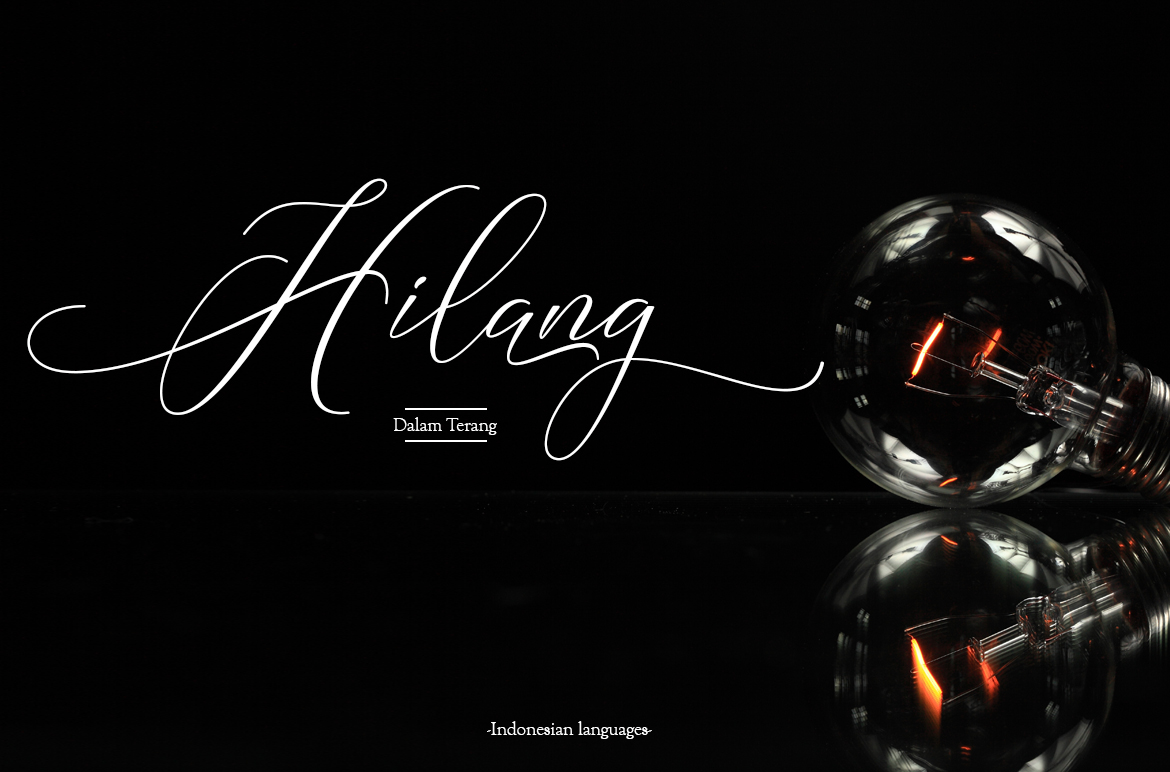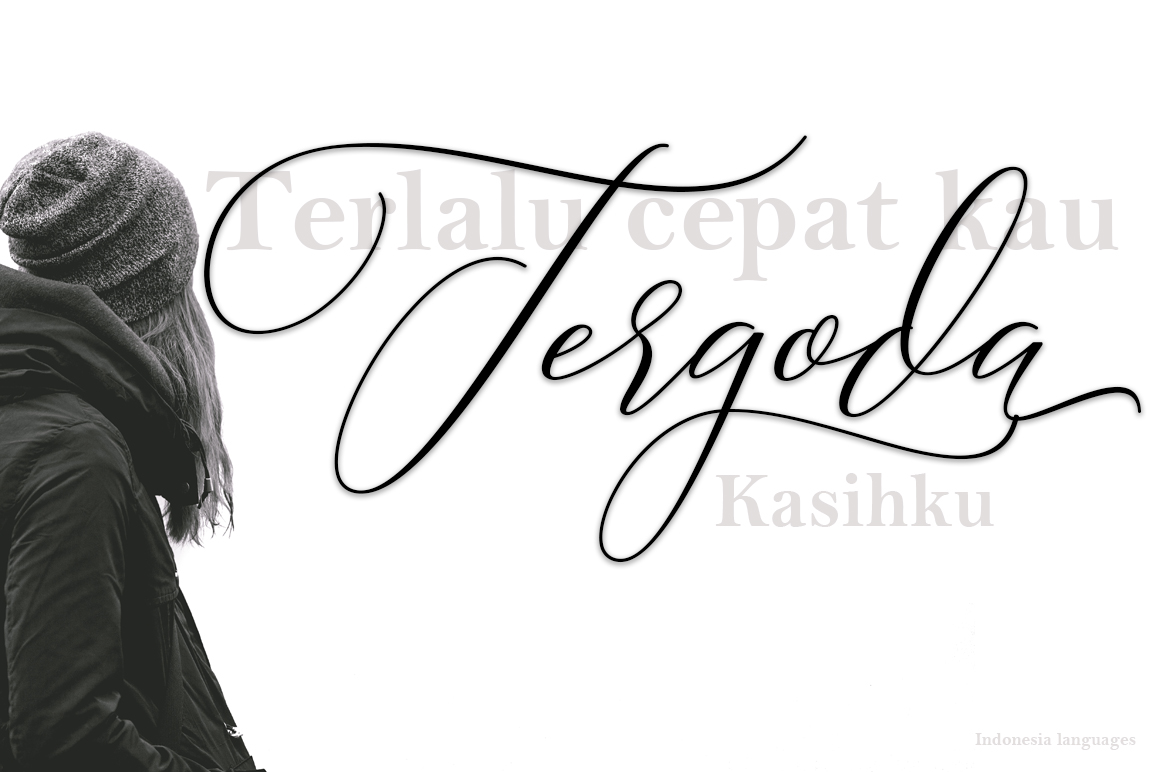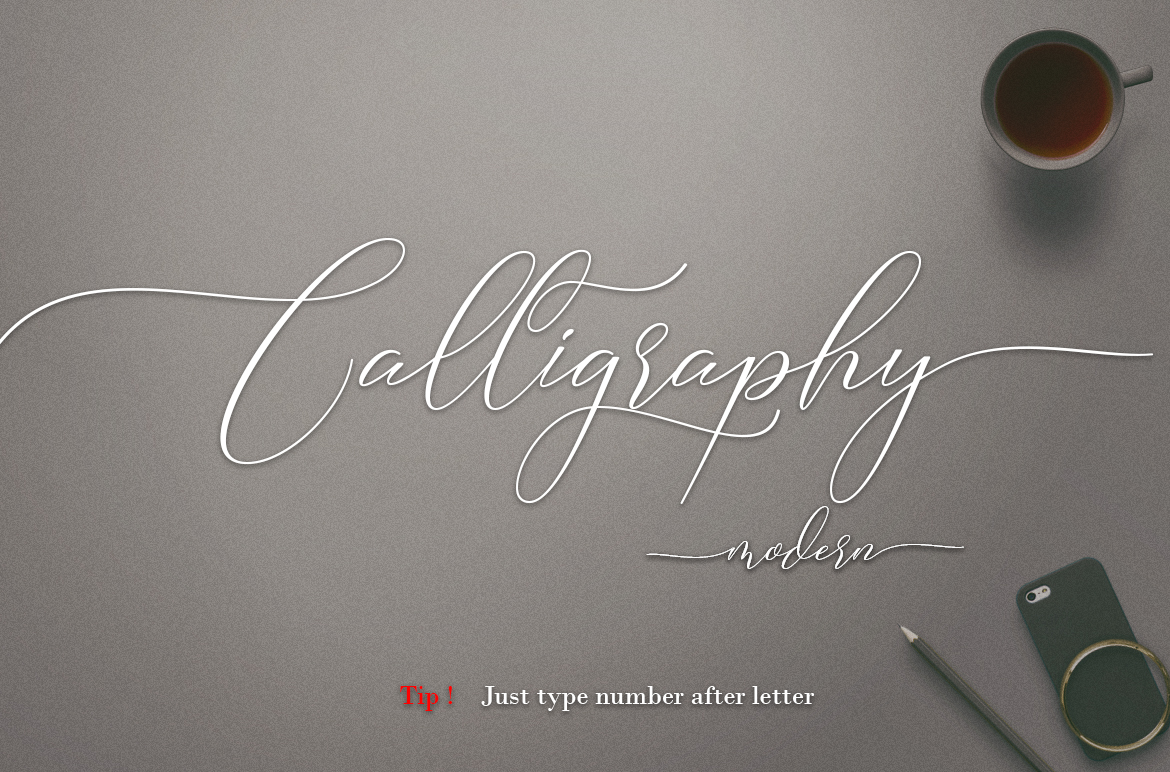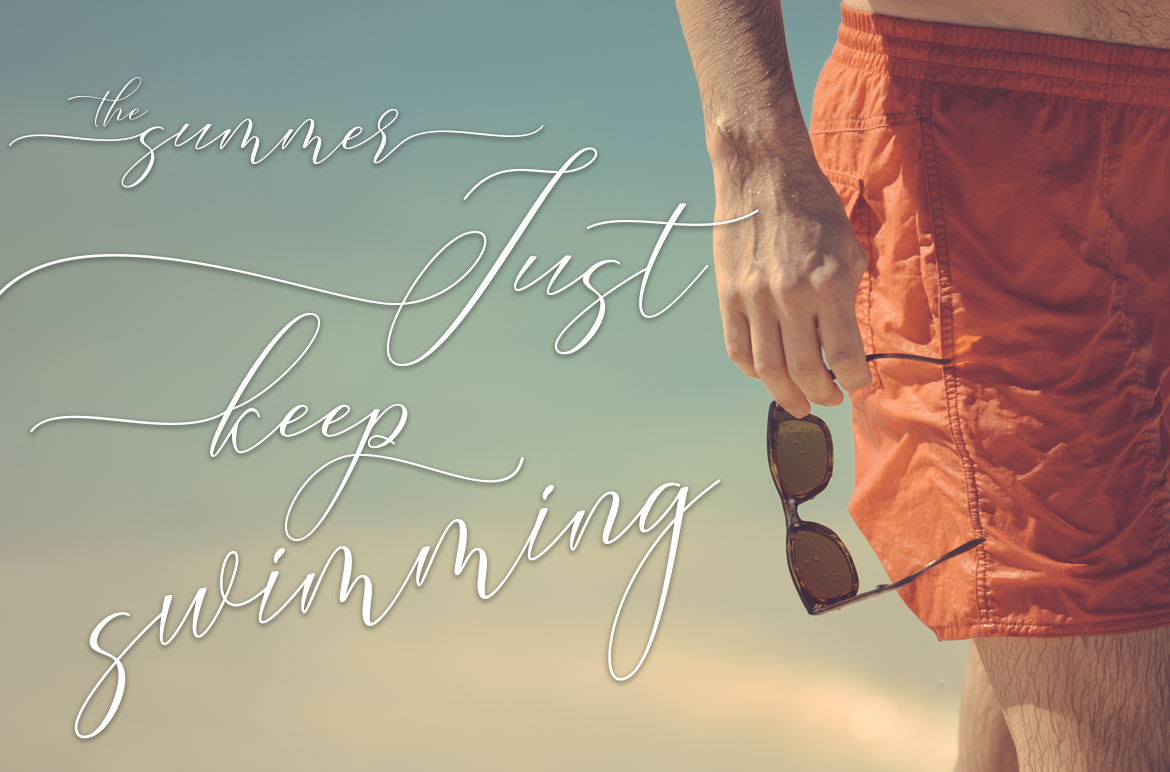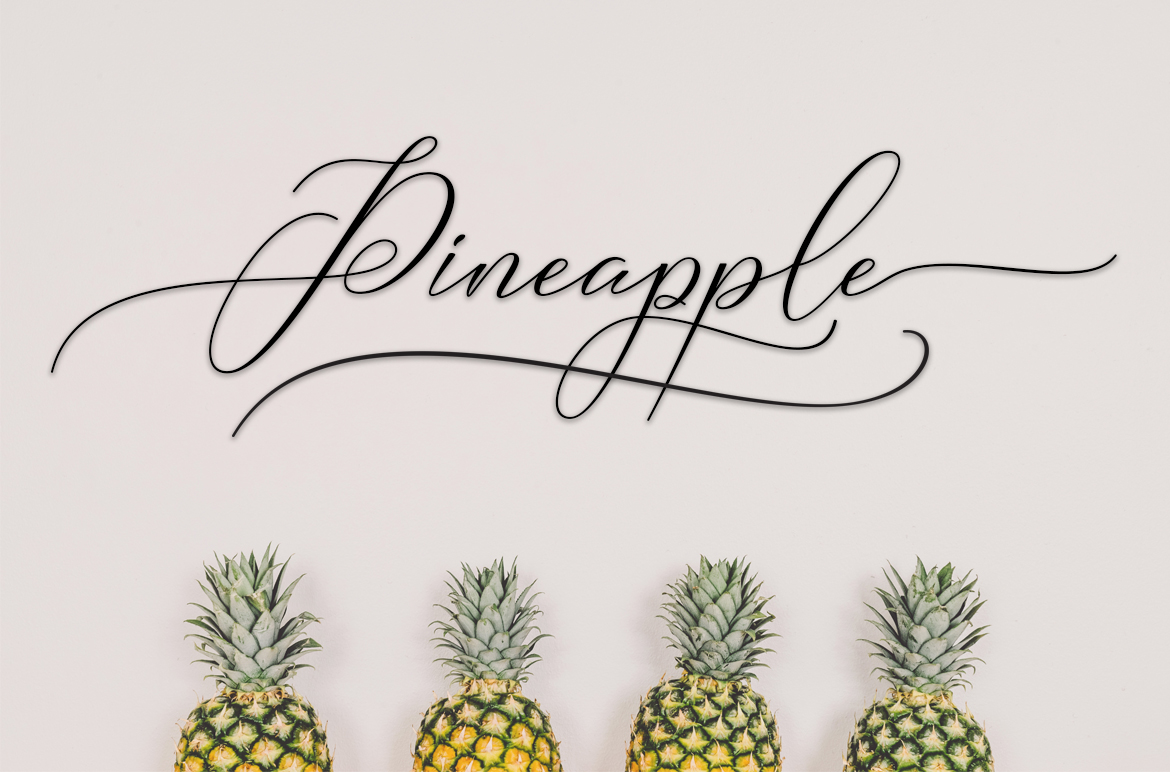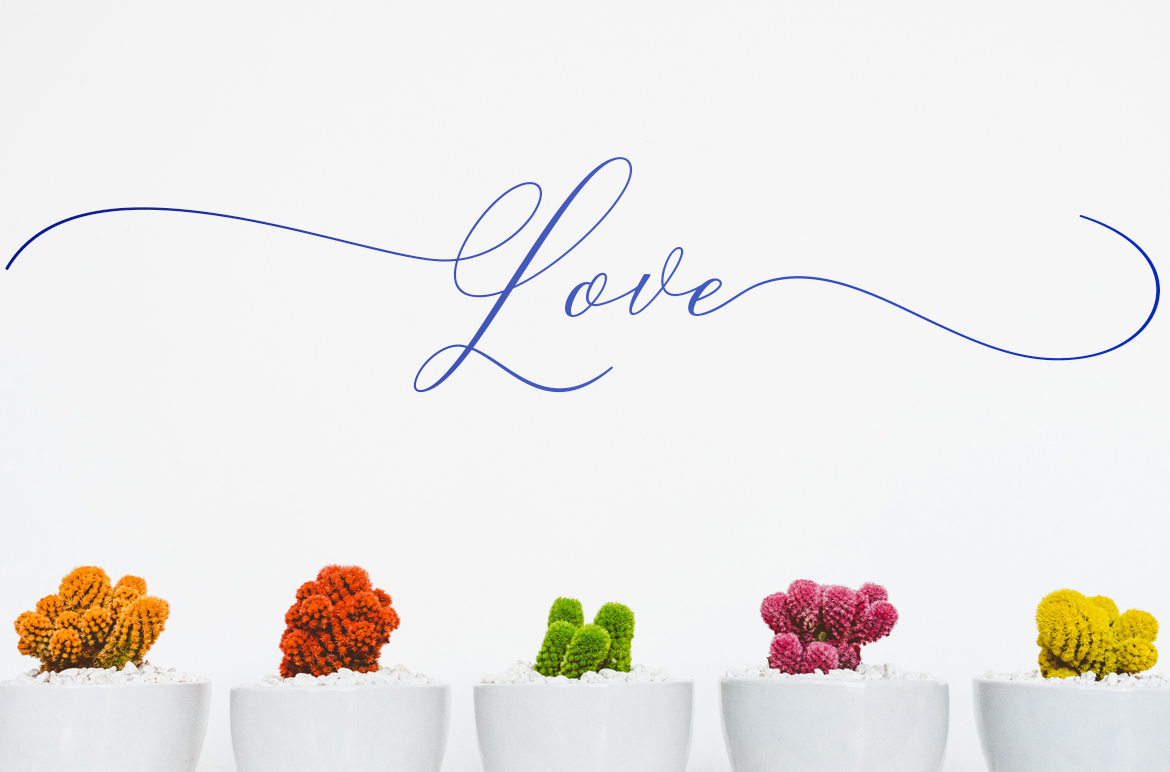
Discovering the Beauty of Typographic Details
As designers, we’ve all been there – staring at a blank canvas, waiting for that spark of creativity to ignite. It’s the moment when the perfect font can make all the difference. Imagine a world where your typography is not just functional, but an extension of your artistic vision.
Enter the Camelia Font, a powerhouse of a typeface that’s designed to elevate your designs to new heights. With an impressive 471 unique glyphs and characters, Camelia Font is more than just a font – it’s a tool for creatives to express themselves. Whether you’re a graphic designer, UI/UX expert, or simply a typography enthusiast, Camelia Font is a valuable addition to your toolkit.
Camelia Font Key Features
- Unique Characteristics: Camelia Font is a high-quality, professional font with a unique blend of elegance and sophistication. It features a wide range of characters, including Latin, Cyrillic, and Greek alphabets, as well as extensive language support.
Camelia Font Review
Camelia Font is a beautiful script font that catches the eye with its elegant, flowing lines and soft curves. The font works well in both digital and print media, making it a versatile choice for designers. ✨ One of the standout features of Camelia Font is its ability to add a touch of sophistication and whimsy to any design. ✨ It’s perfect for creating eye-catching headlines, branding, and packaging design.
- ✨ Elegant and flowing lines create a sophisticated look.
- ✨ Soft curves add a touch of whimsy and playfulness.
- ✨ Versatile font suitable for both digital and print media.
- ✨ Perfect for creating eye-catching headlines and branding.
While Camelia Font is a beautiful font, it’s not without its limitations. ⚠️ One of the main drawbacks is its lack of legibility at smaller font sizes. This can make it difficult to read, especially in digital media. ⚠️ Additionally, the font may not be suitable for body text or large blocks of text, as it can become overwhelming.
Camelia Font is a beautiful and elegant script font that’s perfect for adding a touch of sophistication and whimsy to any design. While it has some limitations, it’s a great choice for designers looking to create eye-catching headlines and branding.
Camelia Font is ideal for adding a touch of elegance to your Canva designs, particularly for wedding invitations, event promotions, and branding materials.
Camelia Font is perfect for creating intricate typography and adding a vintage touch to your designs.
Camelia Font is ideal for adding a touch of sophistication to your presentations and documents.
Camelia Font is commonly used for:
- Wedding invitations and event promotions
- Branding materials and logos
- Typography-based designs and graphics
- Formal presentations and documents